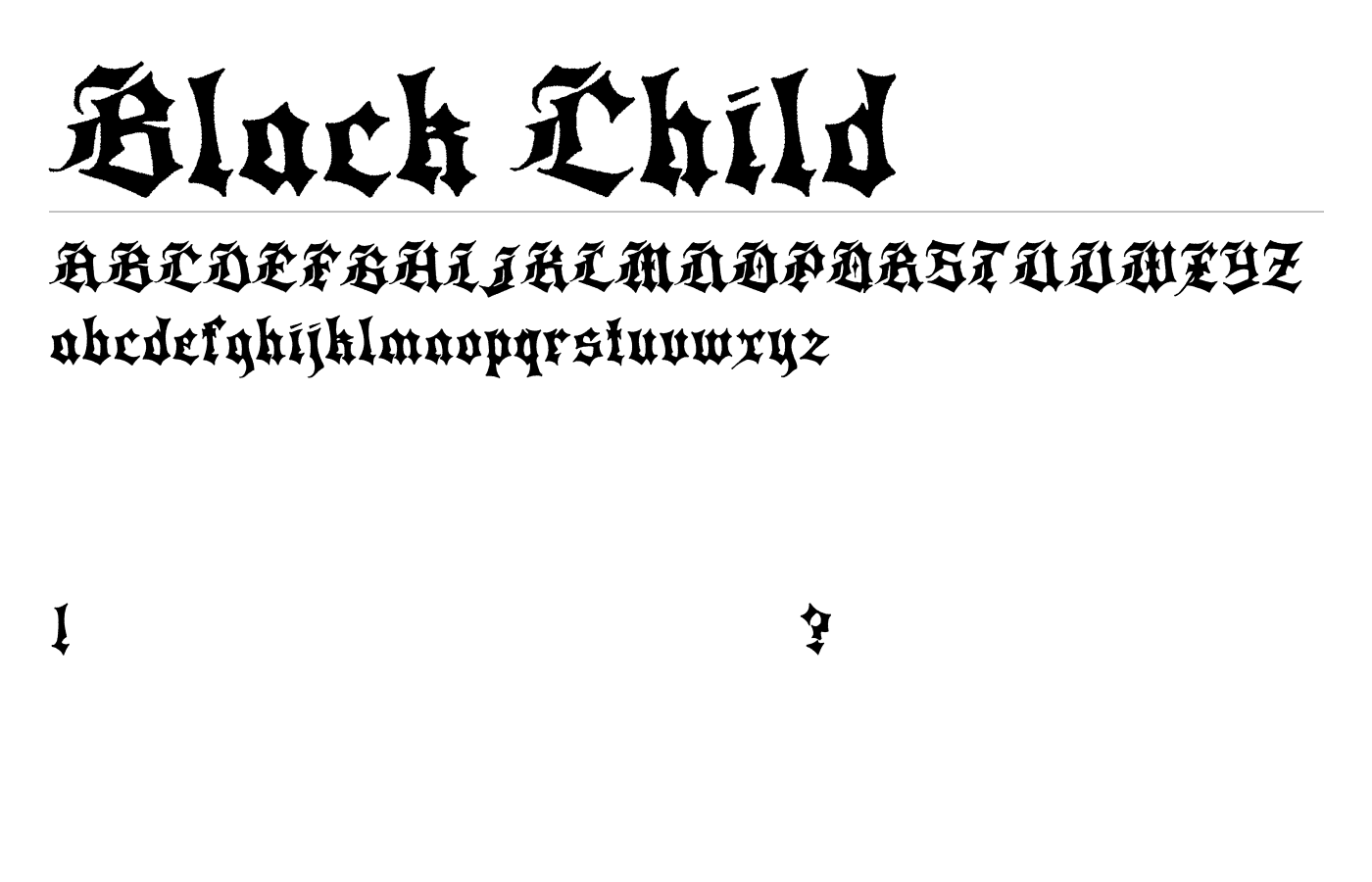
Black Child is a bold, blackletter-style serif font featuring sharp, angular strokes and high contrast between thick and thin lines. With its dramatic, gothic character shapes and ornate details, it conveys a strong, historic, and somewhat edgy personality, making it ideal for use in designs seeking a vintage or medieval-inspired look. This font works best in logos, headlines, or artistic projects where a powerful and distinctive visual impact is desired.
Black Child Font
About Black Child Font
| Font family | Black Child Font |